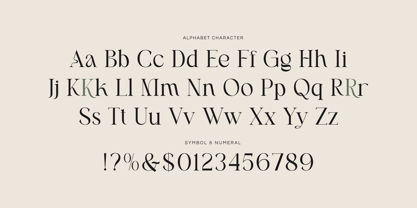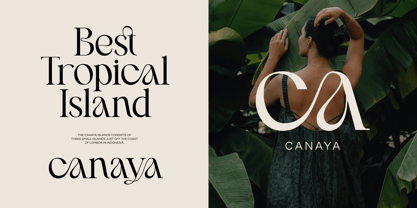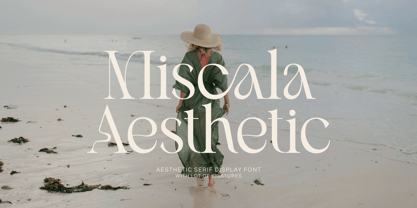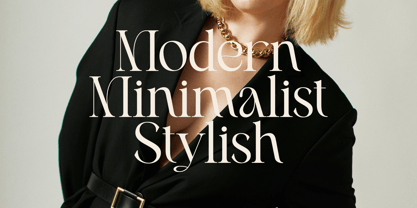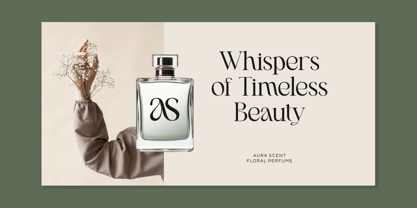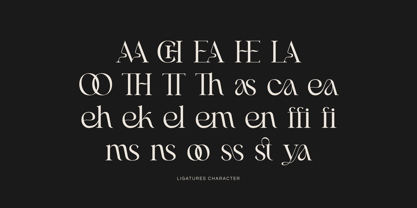
Miscala Aesthetic
by Imoodev
The Miscala Aesthetic Font Family was designed by Aulia Savira Putri and published by Imoodev. Miscala Aesthetic contains 1 styles. More about this family
The Miscala Aesthetic font is a refined serif typeface that epitomizes elegance and sophistication. It beautifully merges a classic design with a modern aesthetic, characterized by pointed terminals and elongated serifs, which lend it a high-fashion appeal with a elegant touch.
Miscala Aesthetic font is an excellent choice for fashion campaigns, editorial designs, luxury branding, and sophisticated design projects. It is particularly perfect for logos, invitations, magazines, photography, product packaging, mockups, and especially for projects aiming to evoke an upscale ambiance.
Designers: Aulia Savira Putri
Foundry: Imoodev